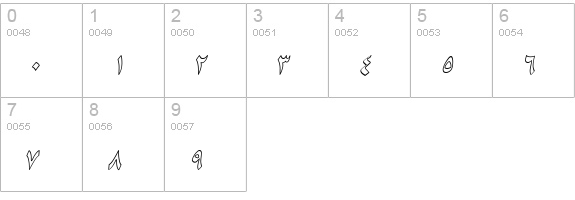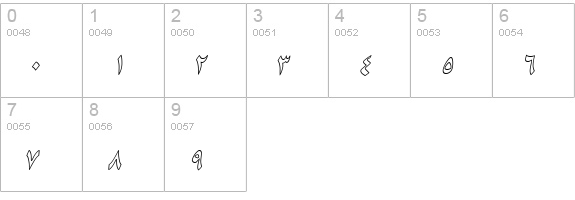
B Niki Outline Italic Font Details
B Niki Outline Italic is a distinctive, italic variant in the B typeface family \xE2\x80\x94 well suited to design and typography projects.
B Niki Outline Italic is a stylish and modern font that effortlessly combines elegance with a touch of playfulness. Its sleek and slender design exudes sophistication, making it perfect for a wide range of design projects. The italic style adds a dynamic flair to the font, making it stand out and grab attention. What makes B Niki Outline Italic even more appealing is that it is available for free download at FontsMarket.com. This means that designers and creatives can easily access this beautiful font and use it in their projects without any cost. Whether you're working on branding, packaging, invitations, or any other creative endeavor, B Niki Outline Italic is sure to elevate your designs and make them truly unforgettable.